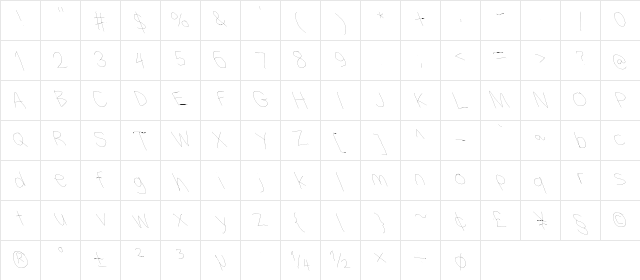
Filament Serie One Free Font
Filament Serie One
Style: One
Complete Filament Serie One glyph index. Displaying only characters natively supported by Filament Serie One font.
Design Context for Filament Serie
Filament Serie is a composed and adaptable typeface that performs quietly and consistently across a wide range of design contexts.